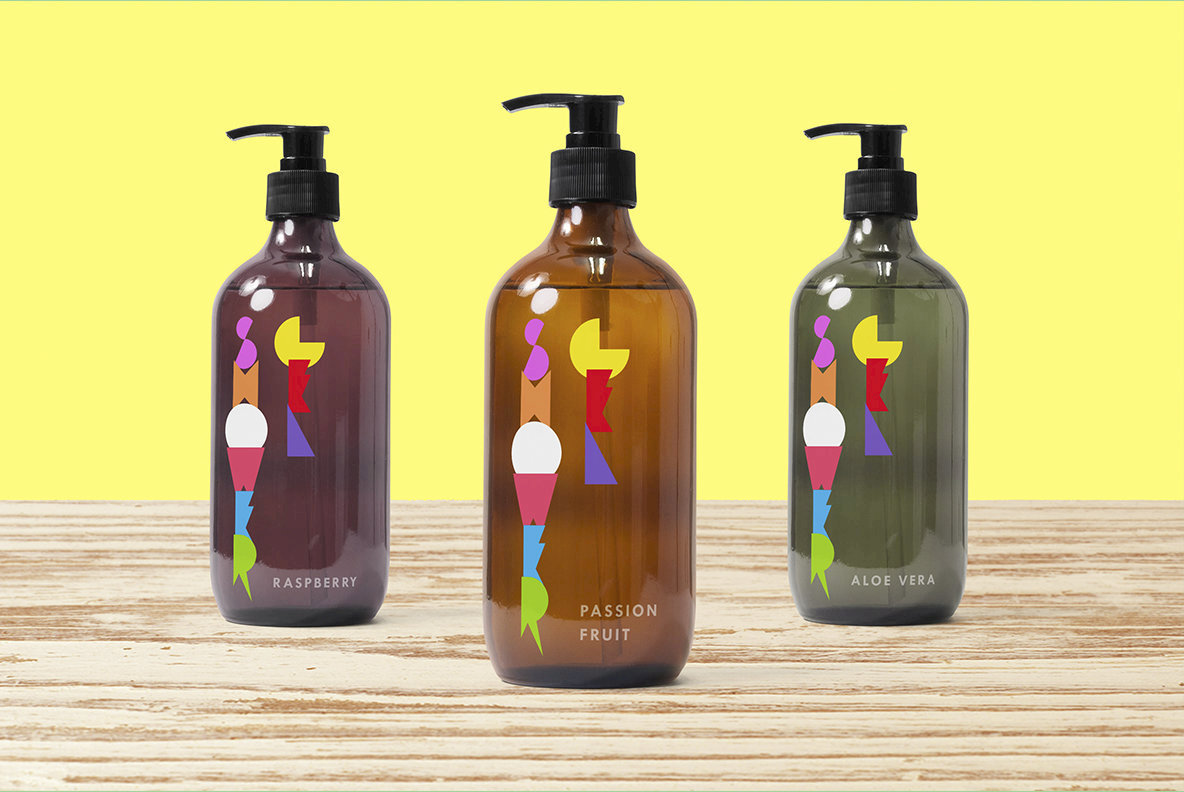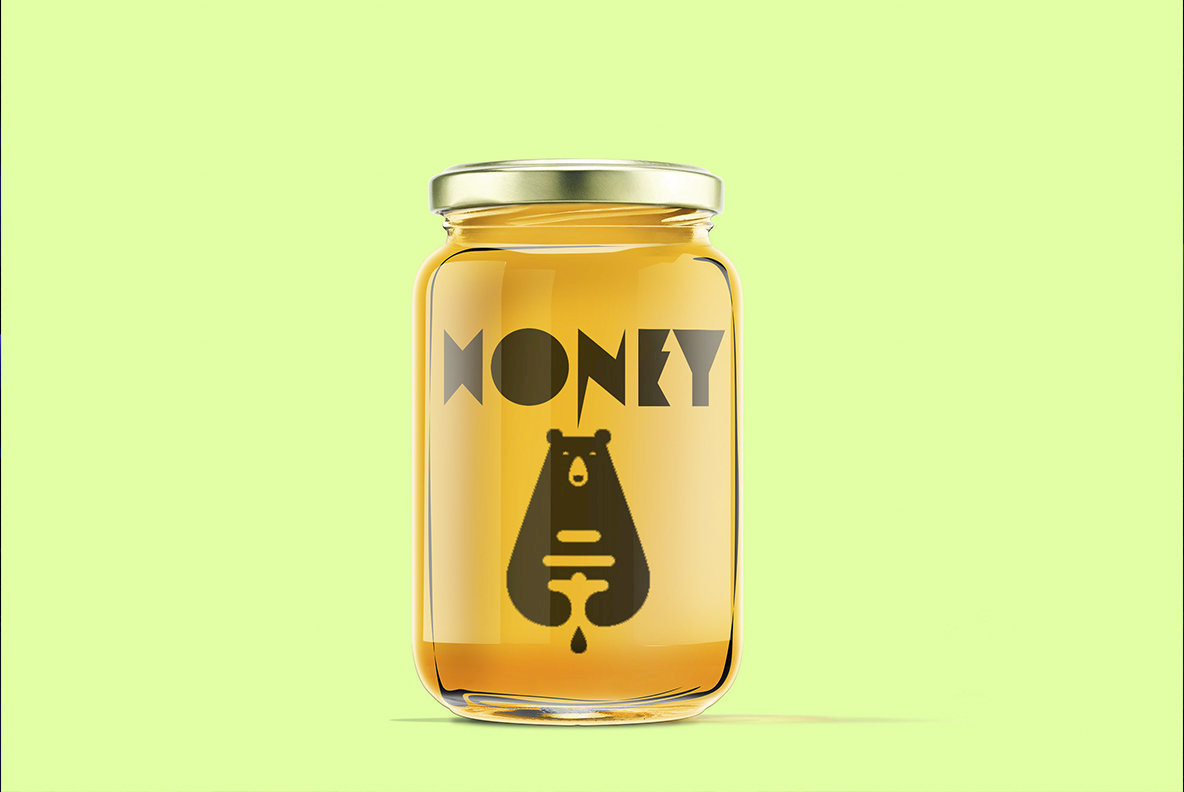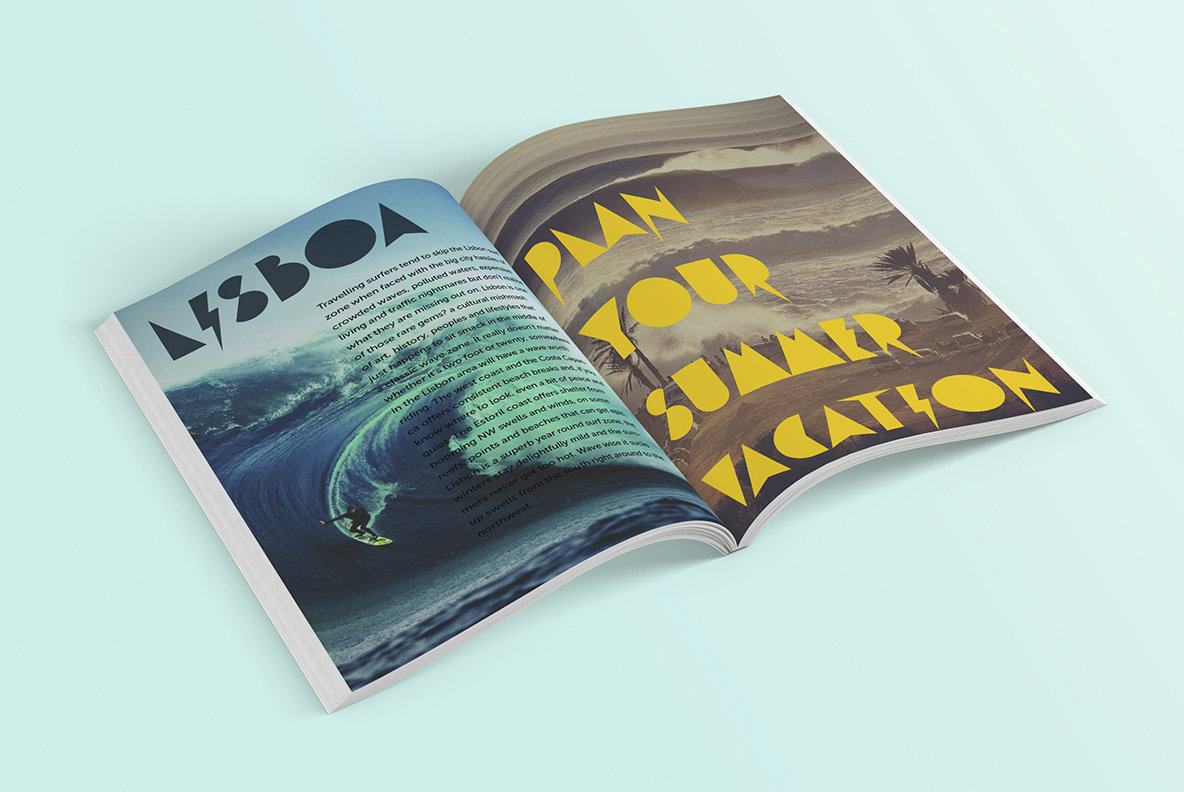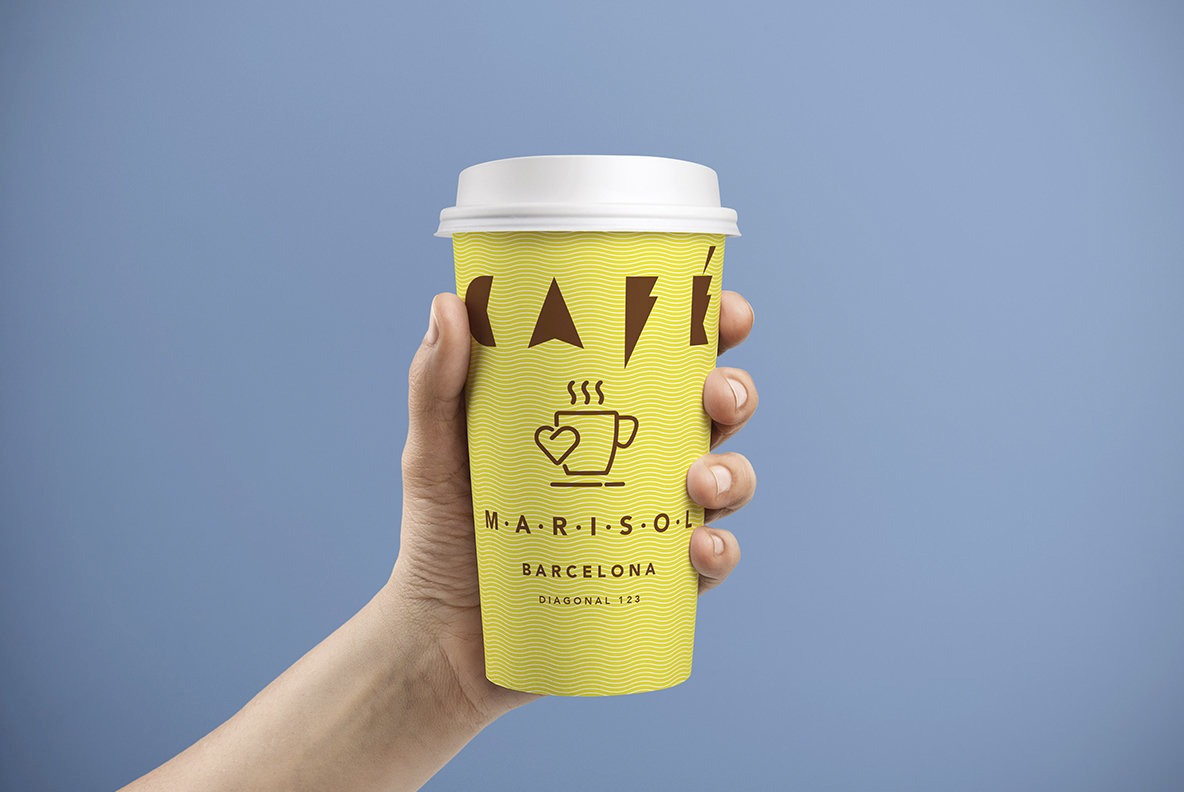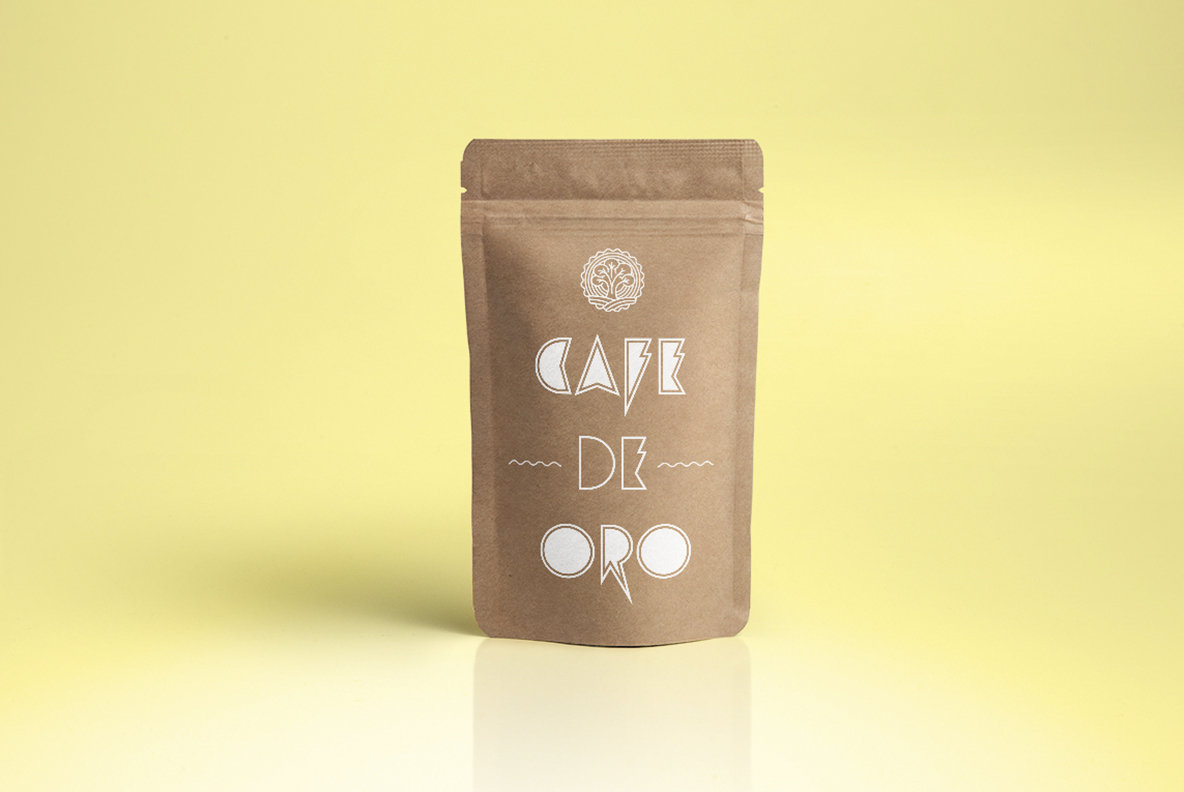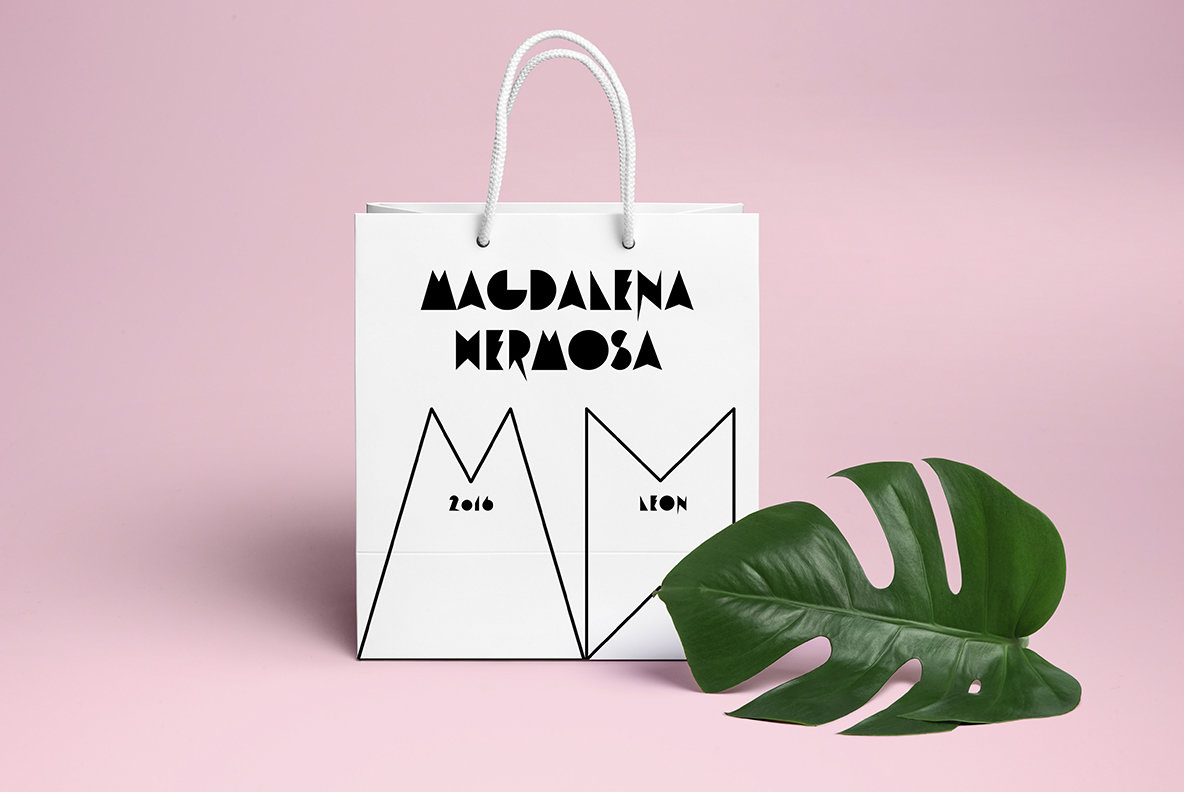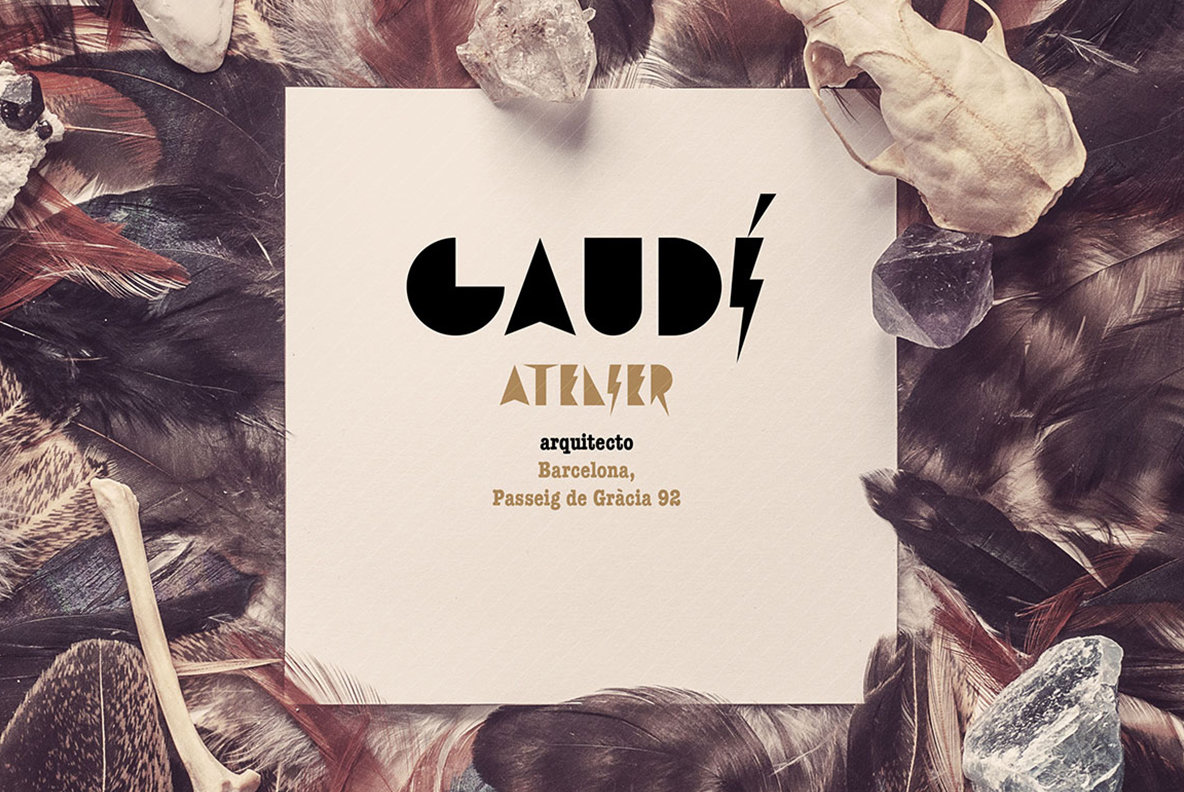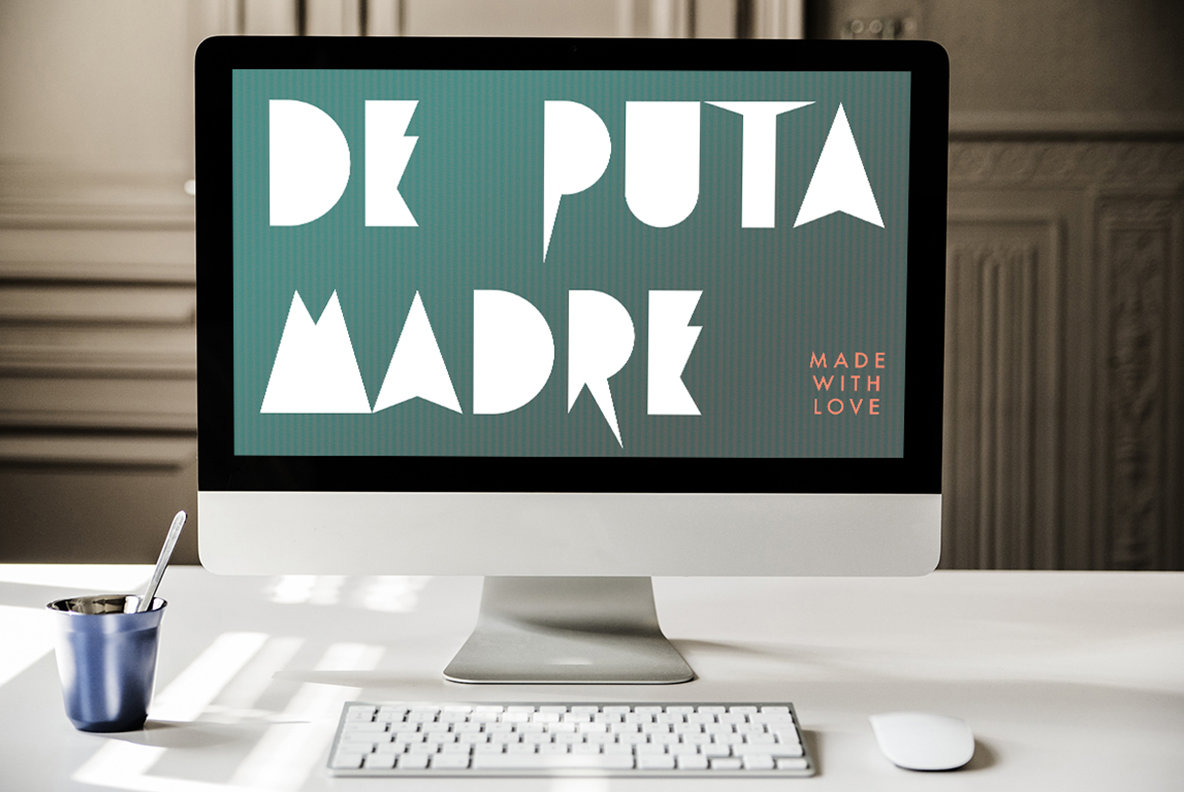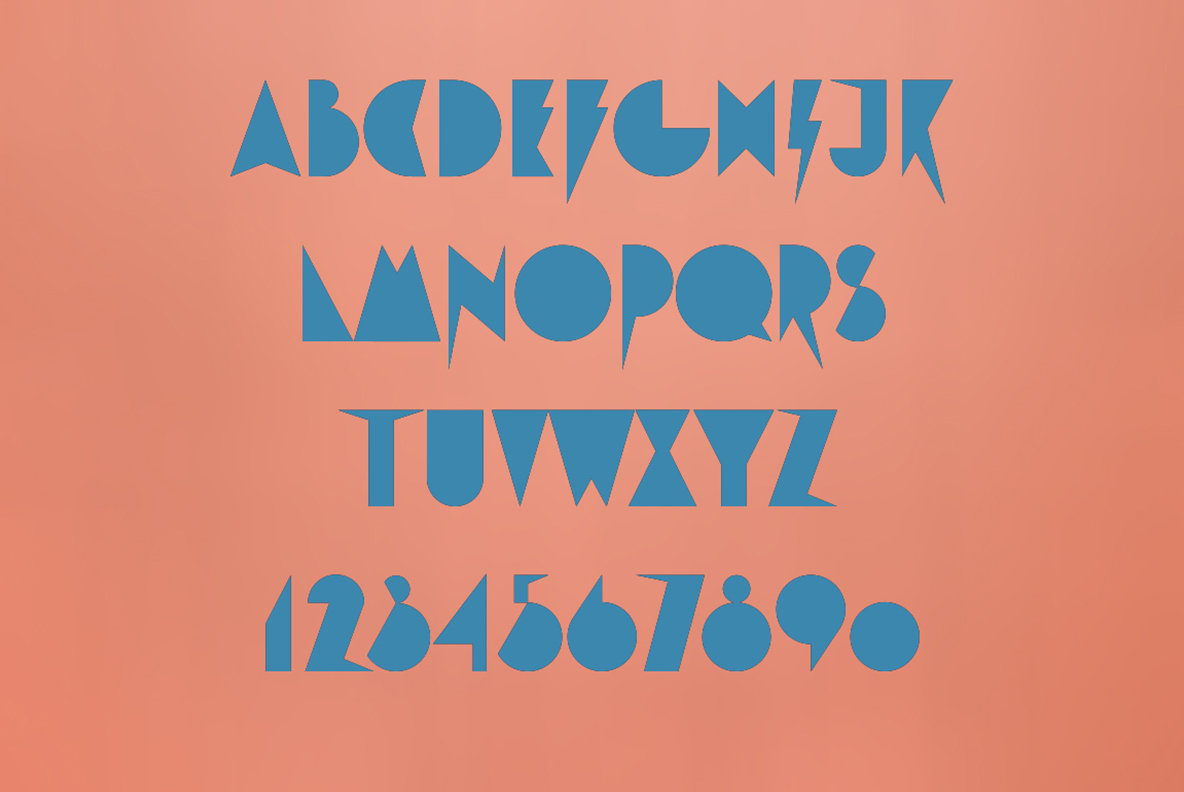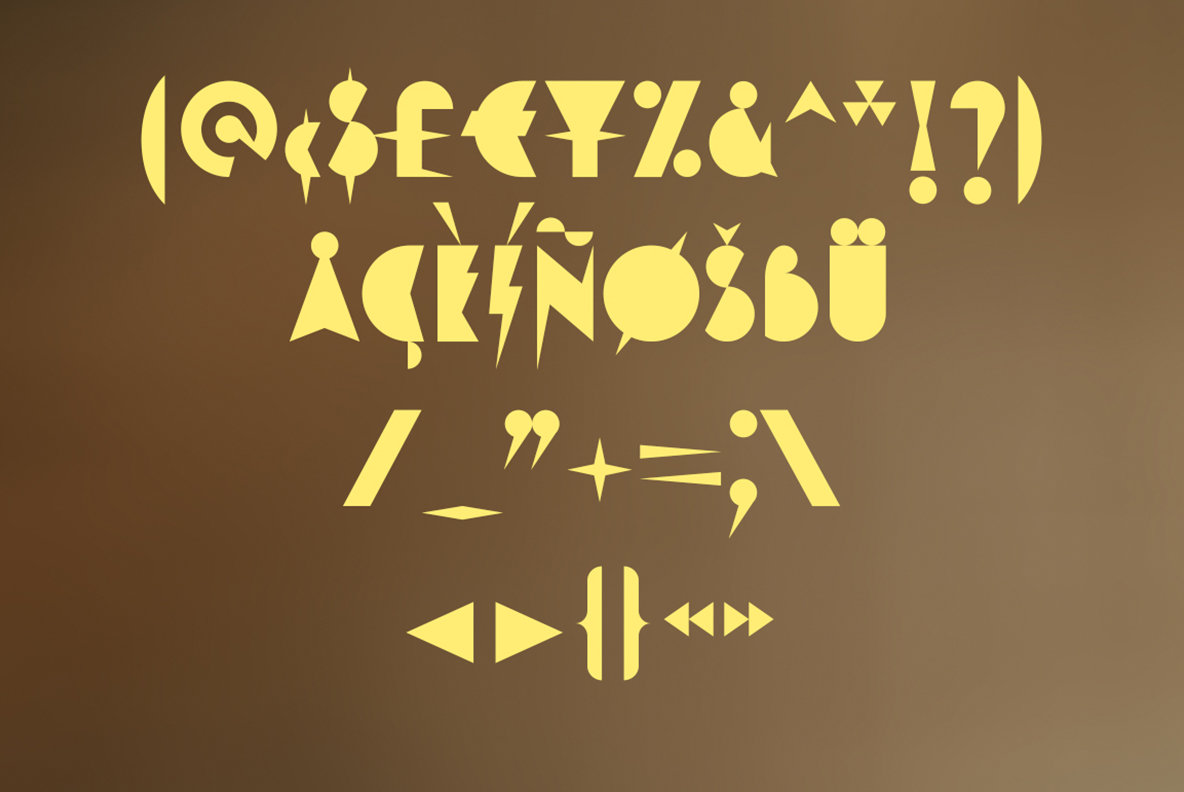
Forma Font
FORMA is designed to bring a stylish edge to your graphic creations. Acting like a silhouette or shadow, it emphasizes your unique artistic voice. With elements that make each design memorable, this font family is a versatile choice for distinguished projects.Forma: A Distinctive Display Font Family